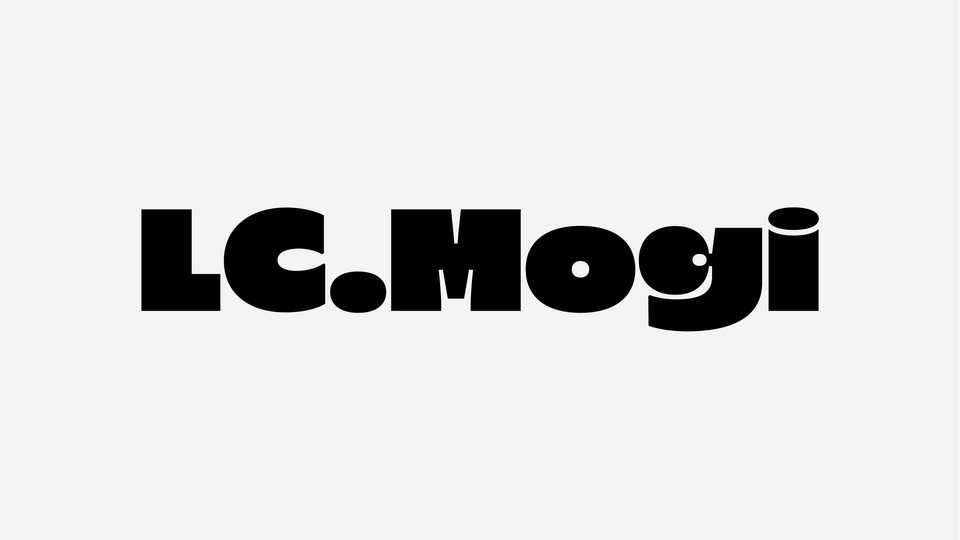
Download LC Mogi font, a playful typeface with its own strong character and unique charm. Adds an extra touch of playfulness with LC Mogi distinctive bouncy and chubby letterforms, reminiscent of the plumpness of Bubblegum.
Designer: Lokal Container